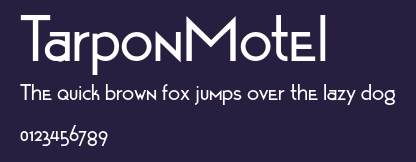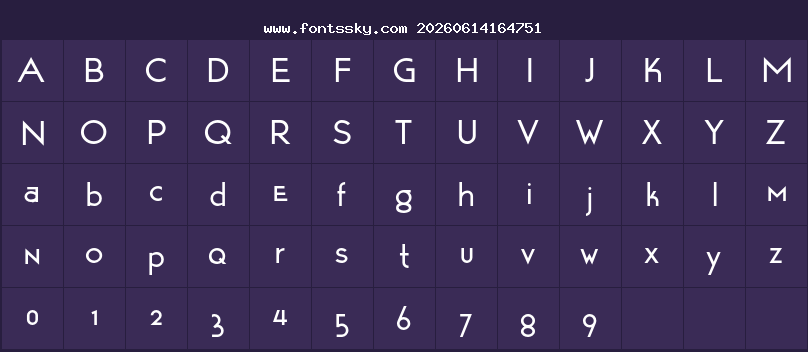
TarponMotel Preview
About TarponMotel.otf
TarponMotel.otf is a modern, elegant sans-serif font designed for ultimate readability and visual harmony. Perfect for branding, headlines, web design, and print materials.